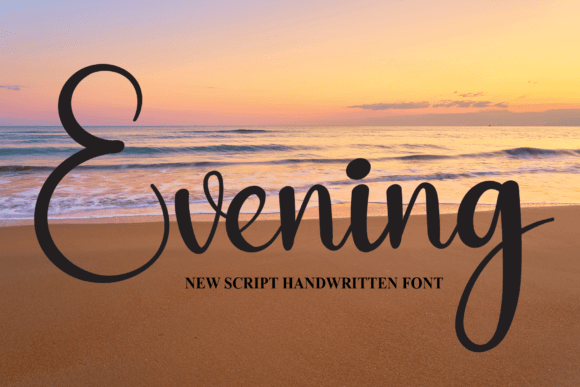
Prepare yourself to be enchanted by the captivating allure of Evening Font, a masterpiece from Robbots stores. This enchanting script exudes both elegance and charm, making it the perfect choice for expressing your heartfelt emotions.
Imagine your wedding invitations adorned with the graceful curves of Evening Font, conveying the joy and love of your special day. Design thank-you cards that radiate gratitude, leaving a lasting impression on your loved ones. Craft inspiring quotes that resonate deeply, using Evening Font to add a touch of handwritten authenticity.
Create greeting cards that become cherished keepsakes, conveying warm wishes and heartfelt sentiments. Design logos and business cards that stand out from the crowd, exuding professionalism and creativity. Every design that yearns for a handwritten touch will find its perfect match in Evening Font.
Indulge in the beauty of Evening Font and let your imagination soar. Its versatility knows no bounds, making it the perfect choice for any occasion that calls for a touch of elegance and charm. Embrace the allure of Evening Font and elevate your designs to new heights of sophistication.